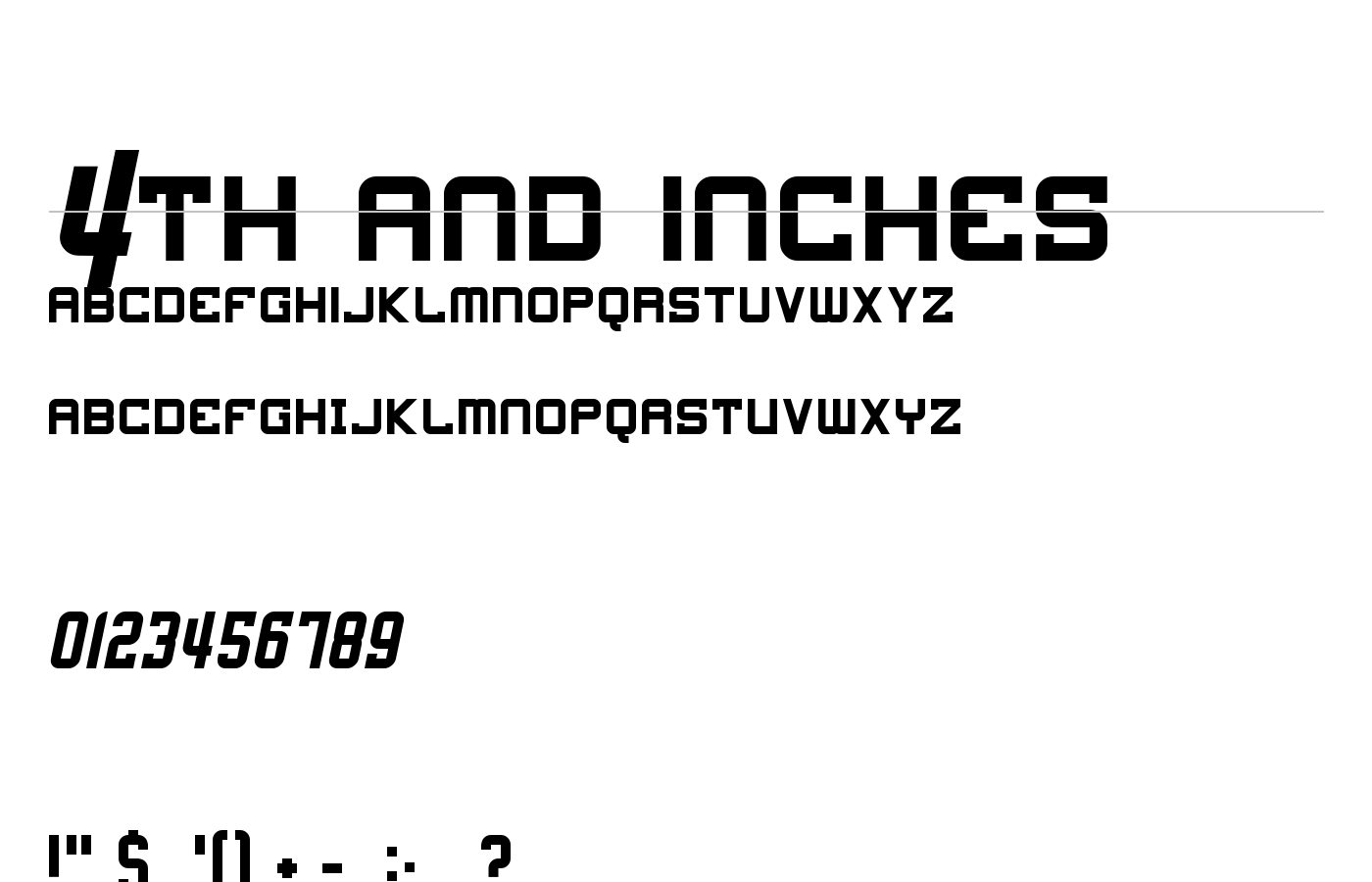
4th and Inches is a bold, condensed sans serif font with a strong, geometric structure and a slight futuristic vibe. Its clean, sharp lines and uniform stroke weight make it ideal for impactful headlines, sports branding, or tech-focused designs where a modern, dynamic feel is desired. This font stands out with its industrial and sporty personality, perfect for grabbing attention while maintaining a sleek and confident appearance.
4th and Inches Font
About 4th and Inches Font